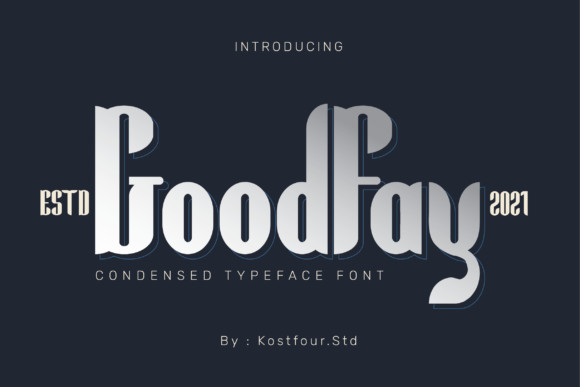
GoodFay Font
GoodFay FontGoodFay isa cool, interesting looking and bold display font. Expertly designed to make your creation look out of this world, this font will look gorgeous on a variety of ideas.